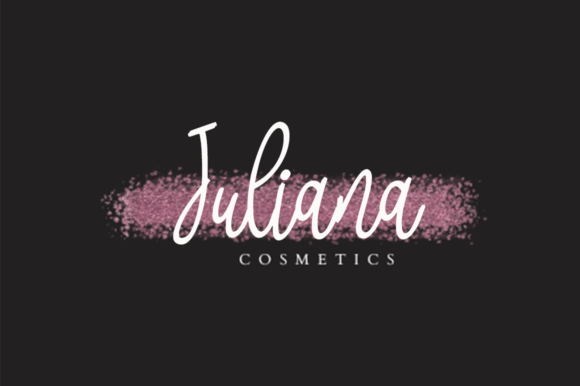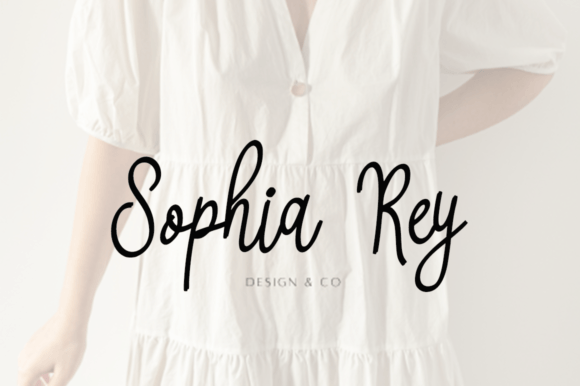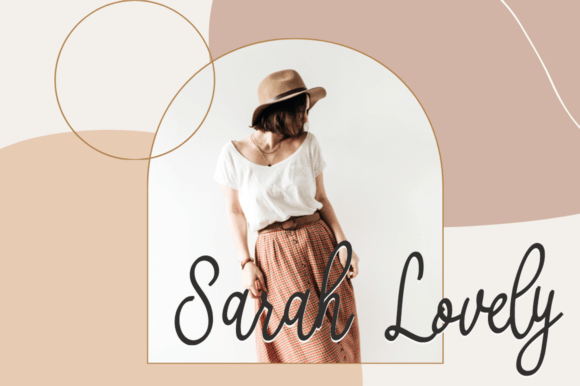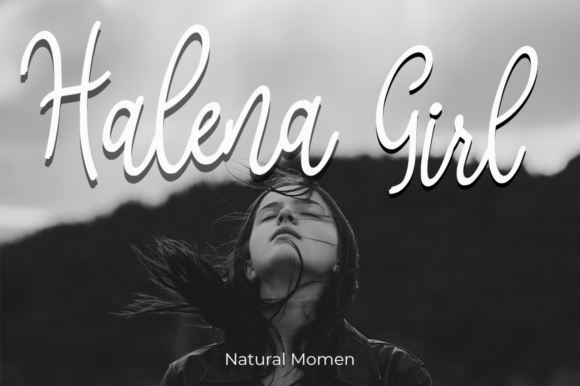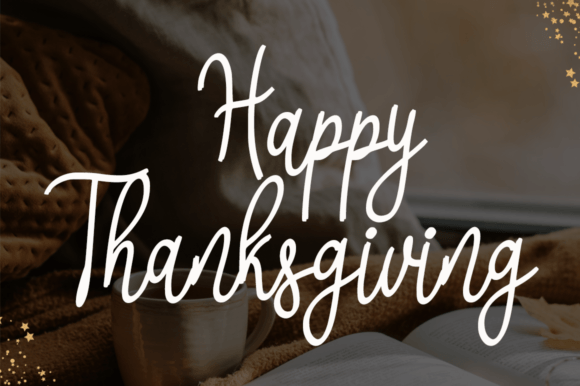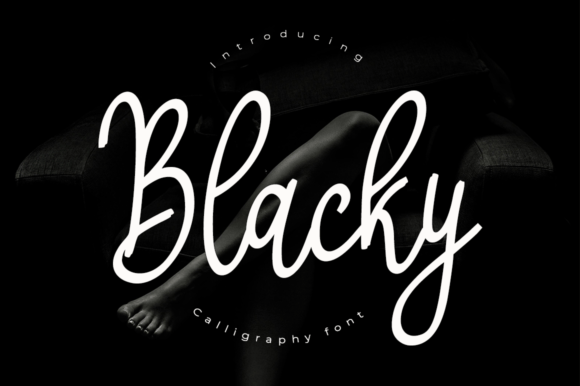
The Allure of Blacky Script: A Designer’s Delight
I still remember the design project that led me to discover Blacky Script. I was working on a wedding invitation suite, and my client wanted a font that was both elegant and modern. I scoured the internet, tried out countless fonts, but nothing seemed to fit the bill. That was until I stumbled upon Blacky Script. Its beautiful swashes and classic calligraphy vibe instantly won me over. I knew right then and there that I had found the perfect font for the job.
An Honest Review of Blacky Script
What I Love About Blacky Script
- ✨ Elegant swashes that add a touch of sophistication to any design
- ✅ Versatile and adaptable to various design applications
- 💫 Unique character that sets it apart from other fonts
- 🎨 Beautifully crafted to evoke a sense of luxury and refinement
While Blacky Script is an amazing font, it’s not without its quirks. For instance, ⚠️ some users may find the font a bit too ornate for certain projects. Additionally, 🤔 the font’s extensive features and glyphs can be overwhelming for beginners.
The Backstory of Blacky Script
Blacky Script was designed by a team of typographers who wanted to create a font that combined modern sensibilities with classic calligraphy. The font’s creator was inspired by the elegant swashes of traditional calligraphy and the versatility of modern typography. The result is a font that’s both elegant and adaptable, perfect for a wide range of design applications.
| Font Name | Blacky Font |
| Author | cocodesign |
| What is Blacky Script? | Blacky Script is a modern script font that combines elegant swashes with classic calligraphy. |
| What design applications is Blacky Script suitable for? | Blacky Script is versatile and can be used for logo design, product packaging, wedding invitations, personal brand identities, headlines, signage, labels, and more. |
| Is Blacky Script easy to read? | Yes, Blacky Script is designed to be legible and easy to read, even at smaller font sizes. |
Blacky Script is a stunning font that’s sure to elevate your designs. With its elegant swashes, versatile design, and extensive features, it’s perfect for a wide range of applications. Whether you’re a designer, crafter, or creative hobbyist, Blacky Script is a great addition to your font library.